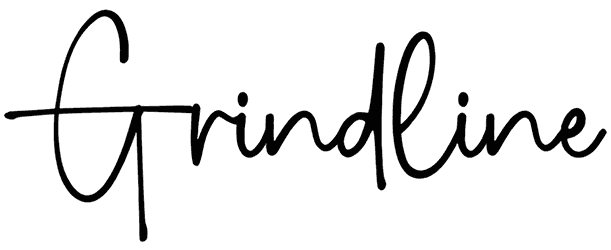
Grindline Font
With a modern and classy manuscript, you can easily have a design that communicates well with viewers and brings their admiration. This signature style face, Grindline, would work as an elegant and unique design for your…
With a modern and classy manuscript, you can easily have a design that communicates well with viewers and brings their admiration. This signature style face, Grindline, would work as an elegant and unique design for your creative projects. Set this signature font for business cards, branding, wedding invitations, or similar, and have delight.